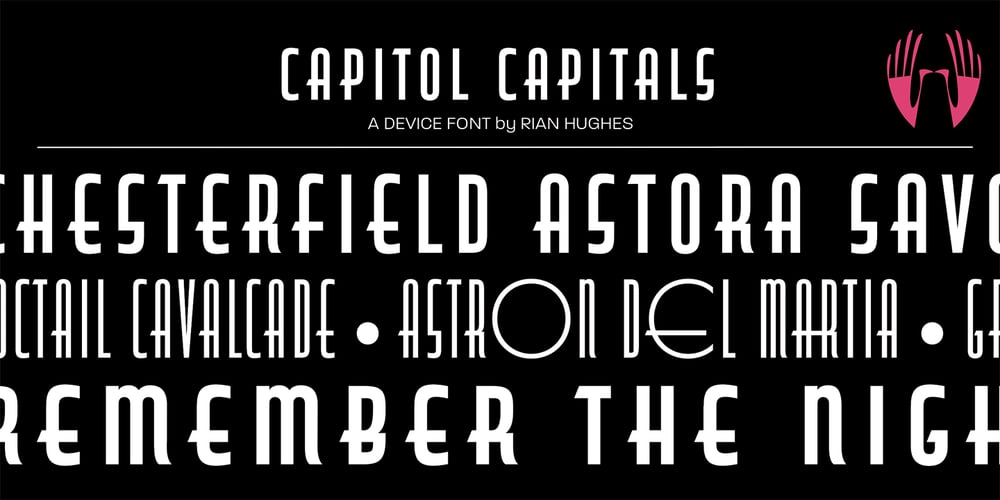
Capitol Capitals Font Family was designed by Rian Hughes and published by Device. Capitol Capitals contains 4 styles and family package options. DF Capitol features two faces, DF Capitol Skyline and DF Capitol Capitals (a multi-weight all-caps compliment) that epitomise Streamline Moderne. Strong geometry and large, open counters with heavily condensed verticals and a succession of contextual alternates and discretionary ligatures. DF Capitol Skyline presents a nice companion in two weights. Both contain full support for Eastern and Central European languages.